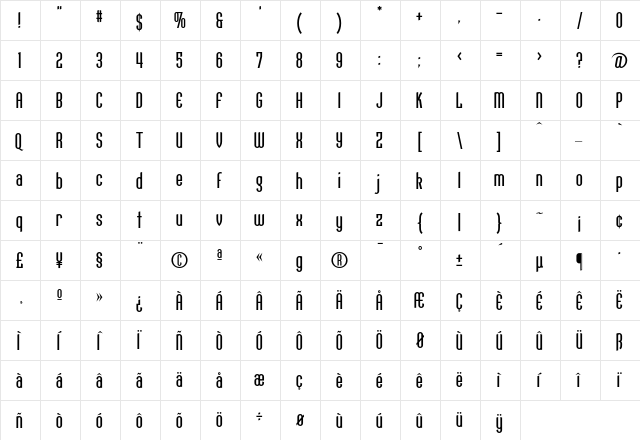
Conques Demi Font Preview
Conques Demi
Conques Demi Font Details
| Style | Demi |
Design Context for Conques Typeface
Conques offers clean, dependable letterforms without strong stylistic allegiance, making it a practical choice for designers who need flexibility.